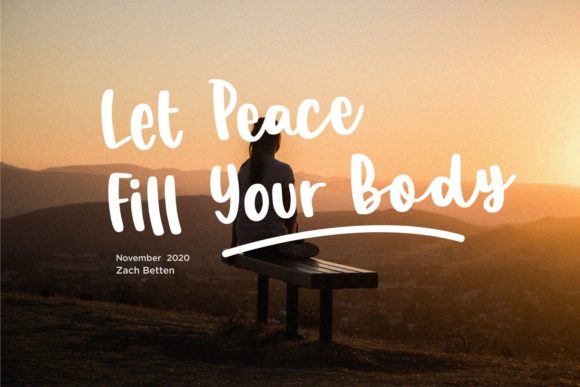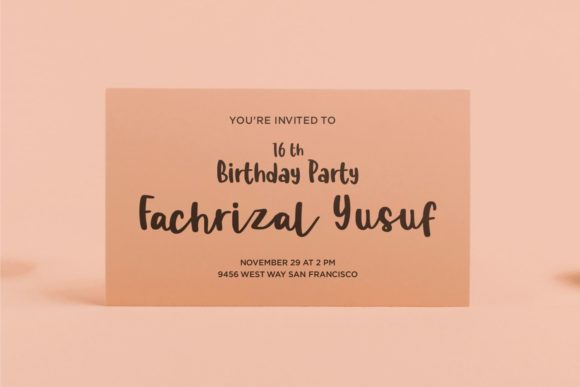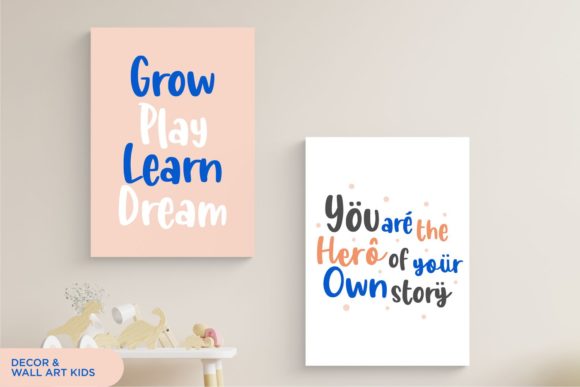
The Sweetest Addition to Your Design Toolbox: Butter Tropical Font
I’ll never forget the design project that led me to discover Butter Tropical Font. I was working on a whimsical branding project for a new ice cream shop, and I was struggling to find the perfect font to capture the playful, tropical vibe. That’s when I stumbled upon Butter Tropical, and it was love at first sight! 🍦
This sweet and friendly handwritten font has since become a staple in my design toolbox, and I’m excited to share its charm with you. In this article, we’ll dive into the world of Butter Tropical, exploring its features, how to use it, and what makes it so special.
So, what makes Butter Tropical so lovable? Here are a few things that have won me over:
- ✨ Sweet and Friendly Vibe: Butter Tropical exudes a warm, friendly feel that’s perfect for designs that need a playful touch.
- ✅ Trendy and Cute: This font is on-trend and adorable, making it a great addition to any design project.
- 💬 Excellent for Body Text: Despite its playful nature, Butter Tropical is surprisingly readable, even in larger blocks of text.
Of course, no font is perfect, and Butter Tropical has a few quirks to keep in mind:
- 🤔 Limited Formality: As a playful font, Butter Tropical may not be the best choice for more formal or professional designs.
- ⚠️ Occasional Kerning Issues: Like any font, Butter Tropical may require some manual kerning adjustments to ensure optimal spacing.
The Story Behind Butter Tropical
Butter Tropical was designed with the intention of capturing the carefree, tropical spirit of a Hawaiian vacation. The font’s creator aimed to craft a typeface that was both sweet and sophisticated, perfect for designs that needed a touch of whimsy.
| Is Butter Tropical suitable for body text? | Yes, Butter Tropical is surprisingly readable, even in larger blocks of text. |
| Does Butter Tropical support OpenType features? | Yes, Butter Tropical supports OpenType features, including stylistic alternates and glyphs. |
And that’s a wrap! Butter Tropical is a fantastic addition to any design toolbox, offering a unique blend of sweetness and sophistication. Whether you’re a designer, crafter, or creative hobbyist, this font is sure to bring a touch of tropical fun to your projects.